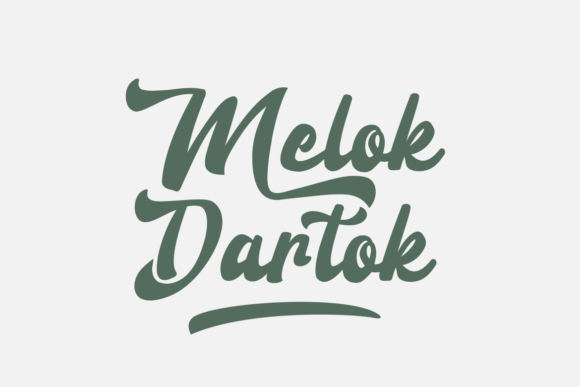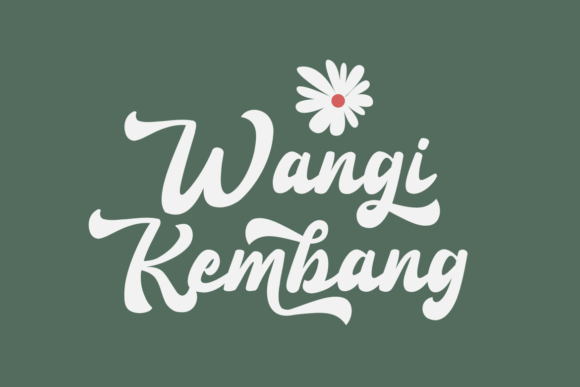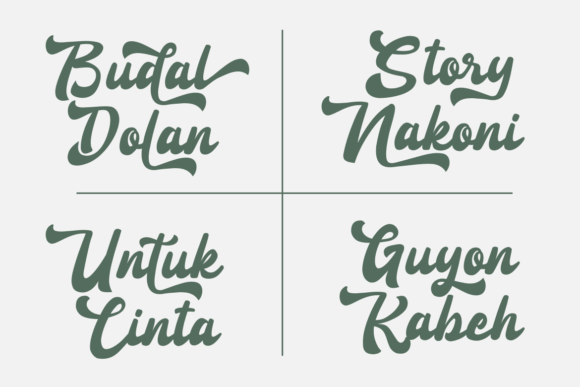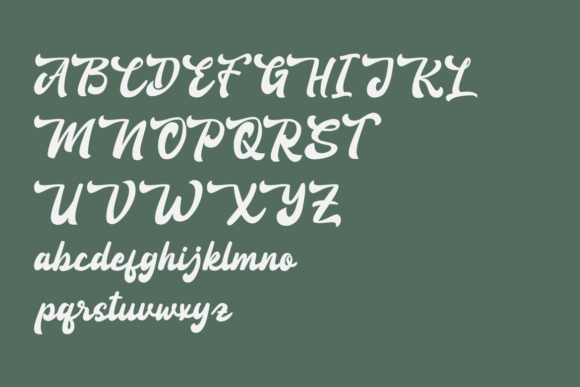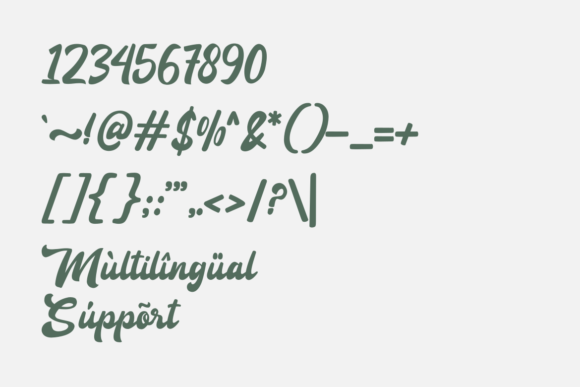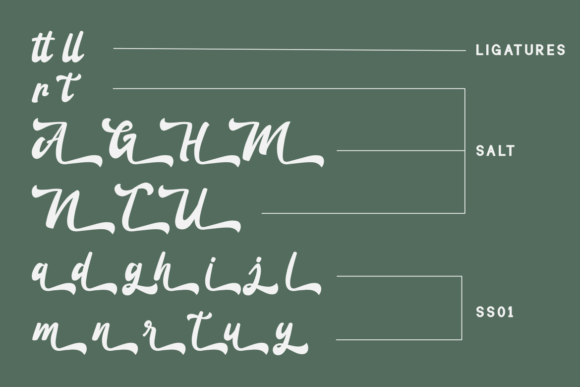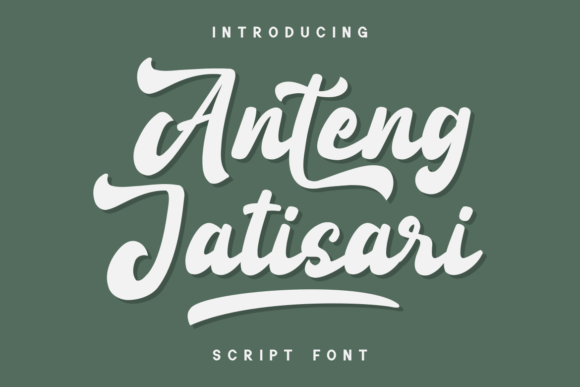
Anteng Jatisari Font: Elevate Your Designs with Elegance and Charm
Are you a designer or crafter looking for a font that embodies sophistication and style? Look no further than the Anteng Jatisari Font, a beautiful script font that adds a touch of elegance to any design. With its fluid strokes and intricate details, this font is perfect for invitations, branding, and creative projects seeking a blend of beauty and professionalism.
What is Anteng Jatisari Font?
Anteng Jatisari Font is a graceful script font that is designed to bring a sense of refinement and poise to your designs. Its fluid strokes and intricate details create a sense of movement and fluidity, making it perfect for designs that require a touch of elegance. Whether you’re creating invitations, branding materials, or creative projects, this font is sure to make your words dance with style.
Key Features of Anteng Jatisari Font
• Fluid Strokes: The Anteng Jatisari Font features fluid strokes that create a sense of movement and fluidity, making it perfect for designs that require a touch of elegance.
• Intricate Details: The font’s intricate details add a level of sophistication and refinement to your designs, making them stand out from the crowd.
• Script Font: As a script font, Anteng Jatisari is perfect for designs that require a touch of elegance and style, such as invitations, branding materials, and creative projects.
Uses of Anteng Jatisari Font
The Anteng Jatisari Font is versatile and can be used for a variety of design projects, including:
• Invitations: Add a touch of elegance to your wedding invitations, birthday invitations, and other special occasion invitations.
• Branding: Use the Anteng Jatisari Font to create a sophisticated brand identity for your business or product.
• Creative Projects: Add a touch of style to your creative projects, such as brochures, flyers, and posters.
Why Choose Anteng Jatisari Font?
There are many reasons why you should choose the Anteng Jatisari Font for your design projects. Here are a few:
• Elegance: The font’s fluid strokes and intricate details create a sense of elegance and sophistication.
• Versatility: The font can be used for a variety of design projects, from invitations to branding materials.
• Professionalism: The Anteng Jatisari Font is perfect for designs that require a touch of professionalism and style.
The Anteng Jatisari Font is a beautiful script font that embodies elegance and charm. With its fluid strokes and intricate details, this font is perfect for designs that require a touch of sophistication and style. Whether you’re a designer or crafter, this font is sure to elevate your designs and make your words dance with style.